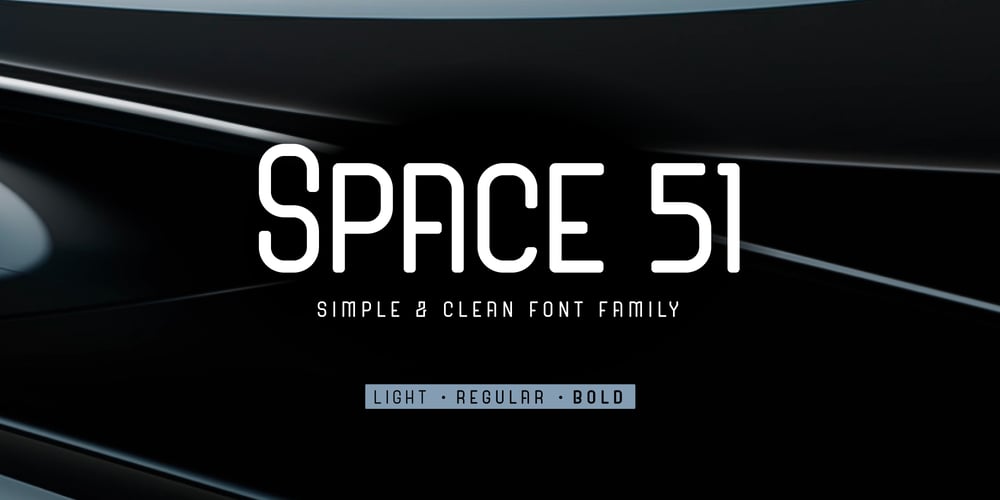
Space 51 Font Family was designed by Agustian Eko Saputro, Aprilia Nurina Putri and published by Mightyfire. Space 51 contains 3 styles and family package options. Space 51 is a font with modern, clean and minimalist looks. If you want to write something related to technology or digital things, Space 51 is perfectly suitable.